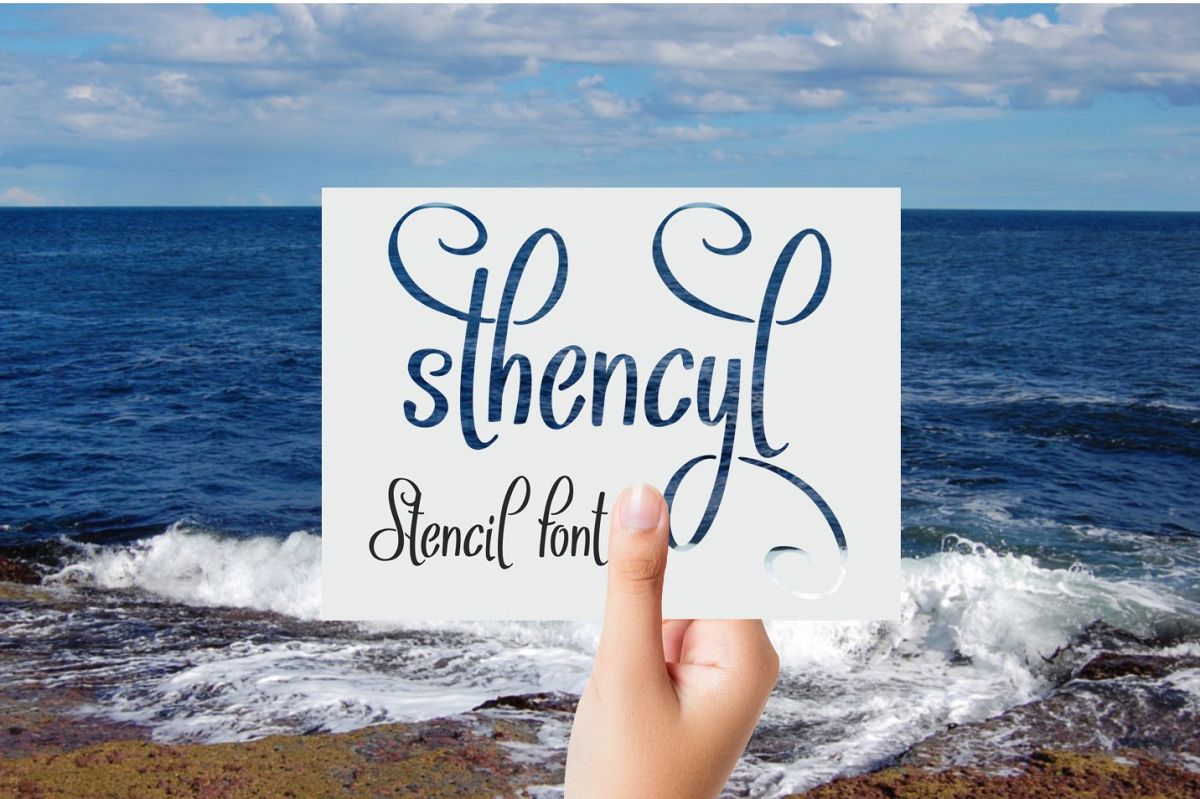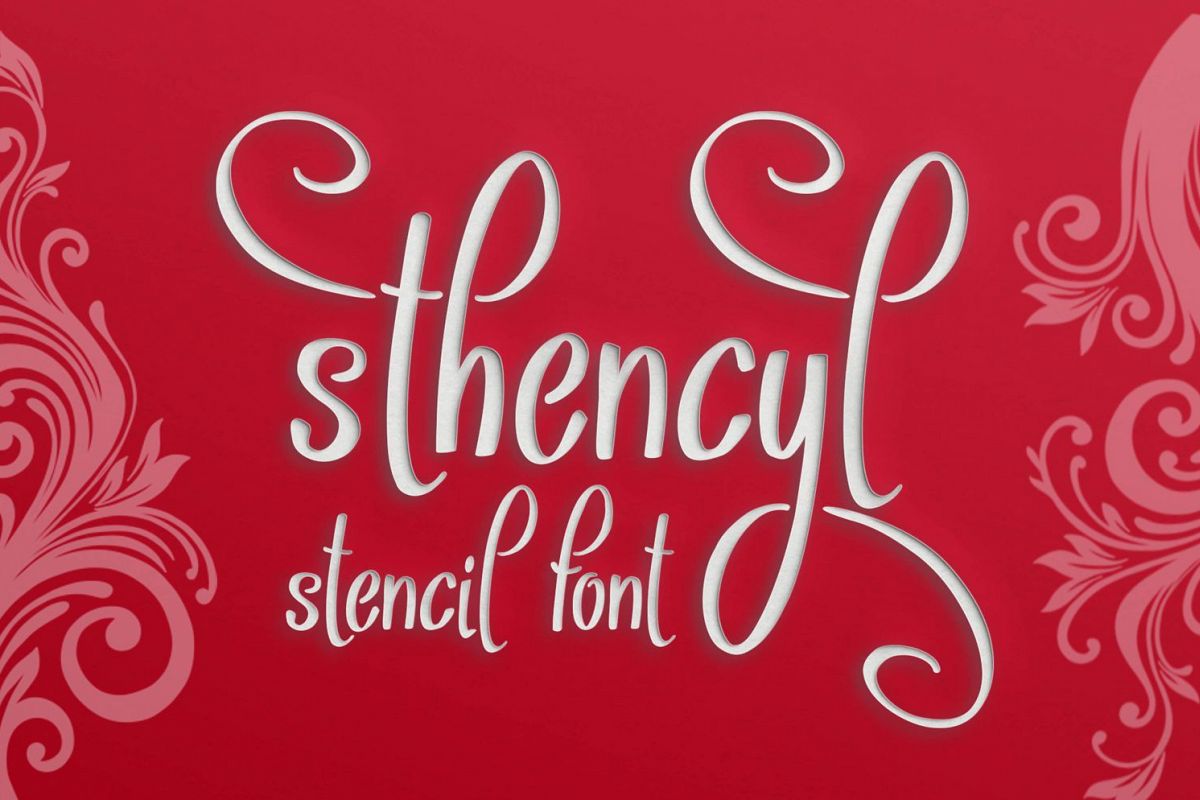
Sthencyl
Sthencyl is a stencil font without closed loops on the letters/numbers/flourishes.
Type [ before letter b/f/h/k/l) and type ] after letter g/j/y for the curly swashes.
See example: st[hency][l